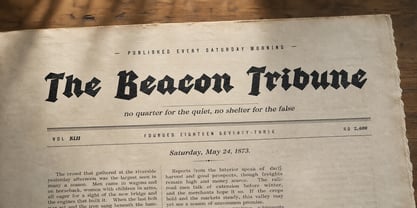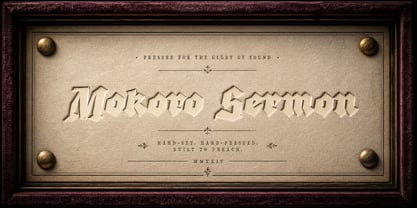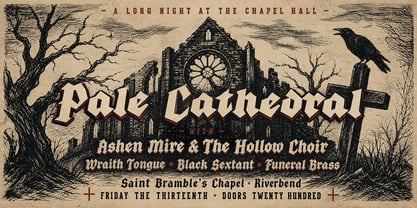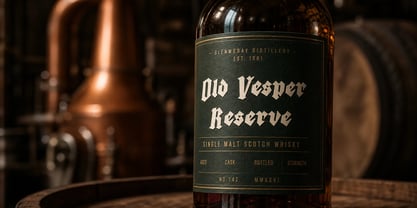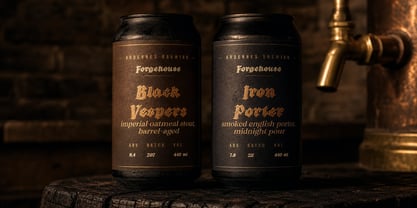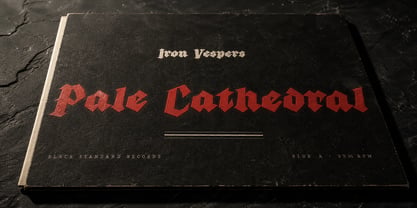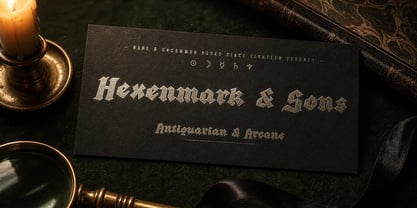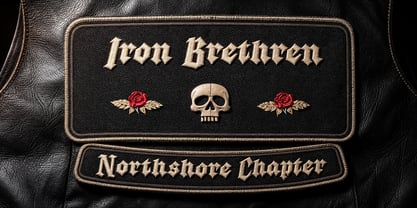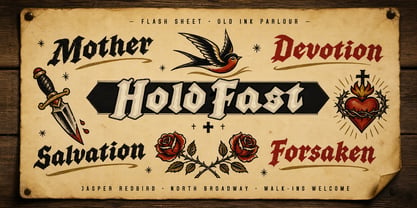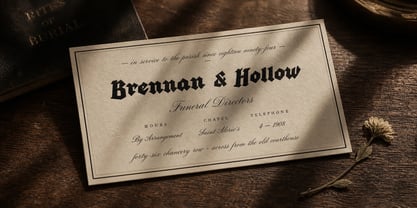
Mokoro Sermon
Mokoro Sermon is a heavy gothic blackletter — modern in weight, medieval in temperament.
Thick vertical strokes with sharp diagonal terminals, deep ink-traps in the bowls, and a slight inward lean that lends every word a stand-up-straight authority. The lowercase reads cleanly at large sizes and stays legible down to body copy. Capitals are dramatic — drawn for chapter openers, tattoo banners, and album spines.
Picture it stamped into the lid of an aged amber-glass beer bottle, or pulled in red ink across a parchment funeral broadside.
The font is built with advanced functionality and guaranteed top-notch quality, containing stylistic and contextual alternates, ligatures and more automatic and manual features; all to give you full control and customizability.
It has extensive lingual support, covering all Latin-based languages, from North Europa to South Africa, from America to South-East Asia. It contains all characters and symbols you'll ever need, including all punctuation and numbers.